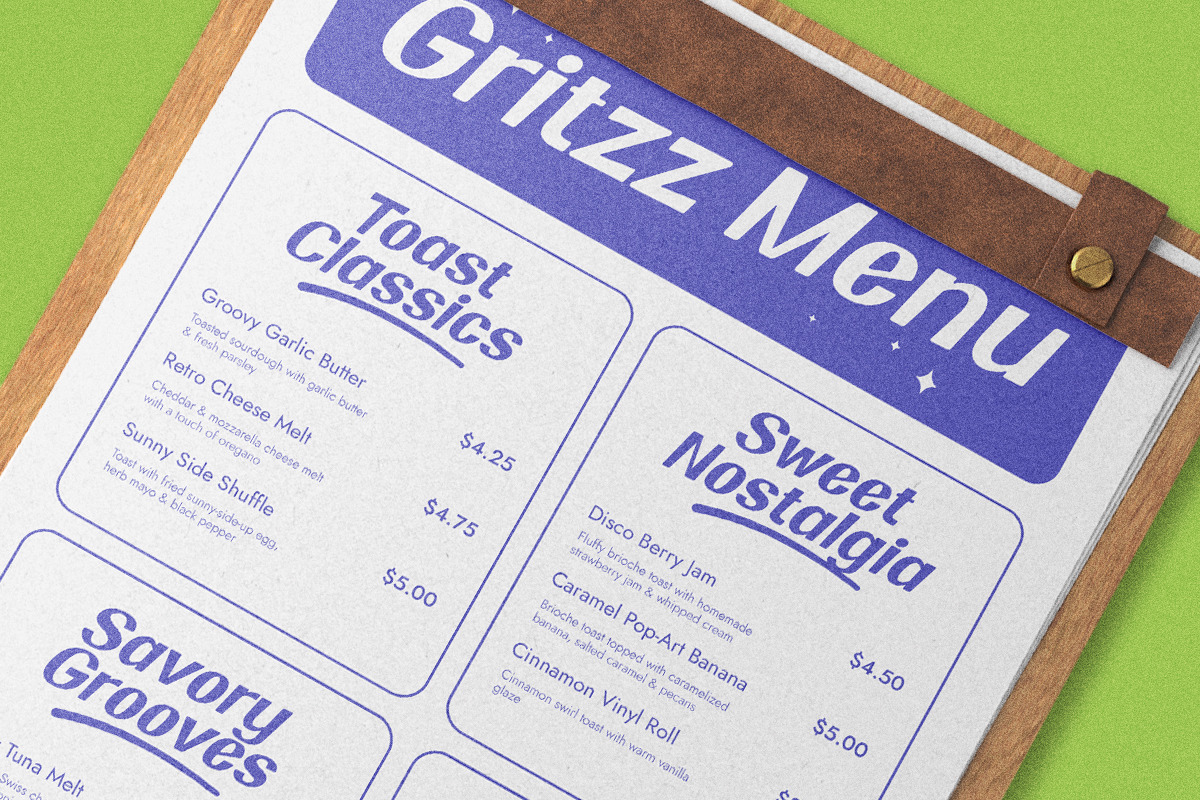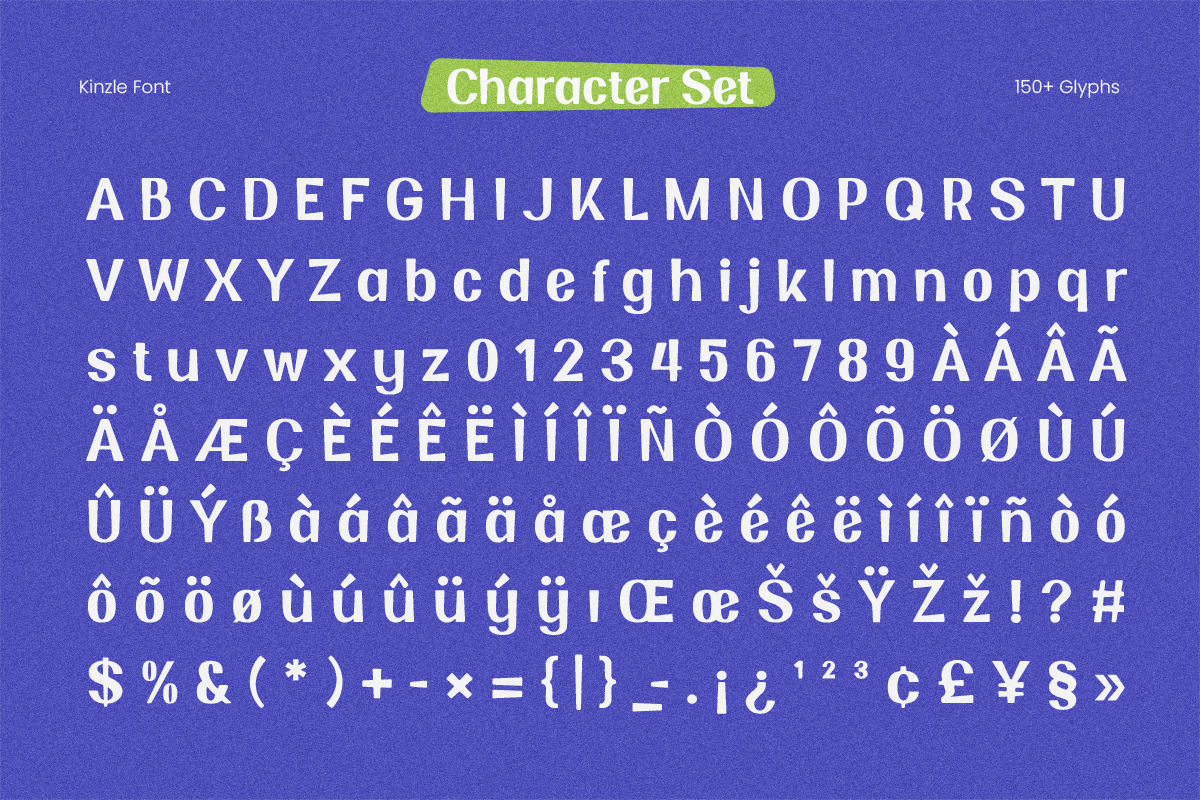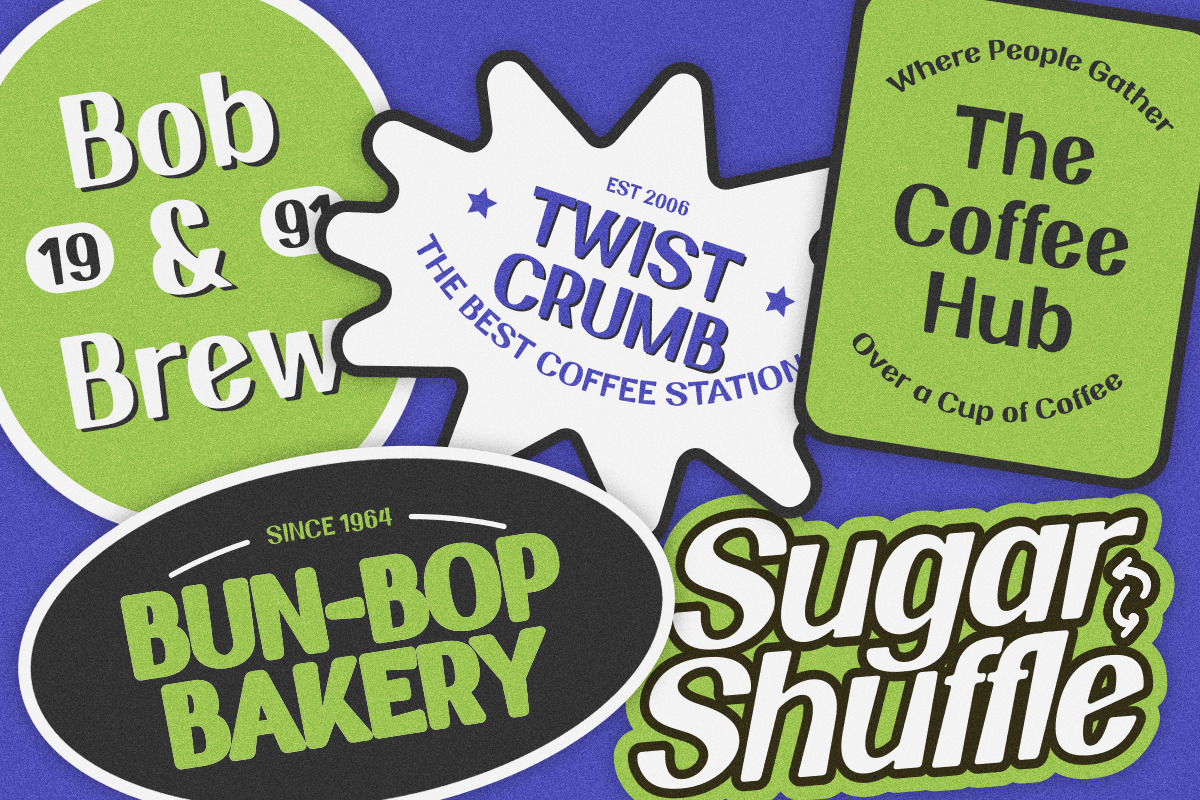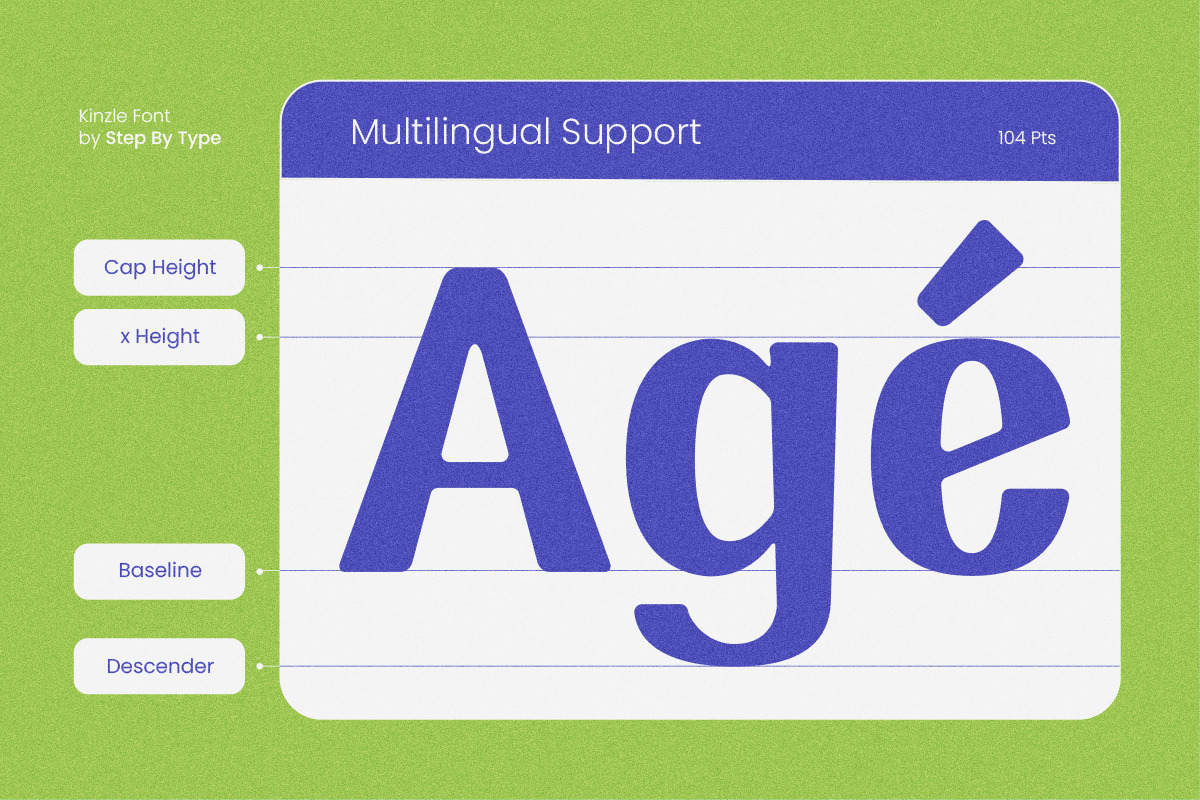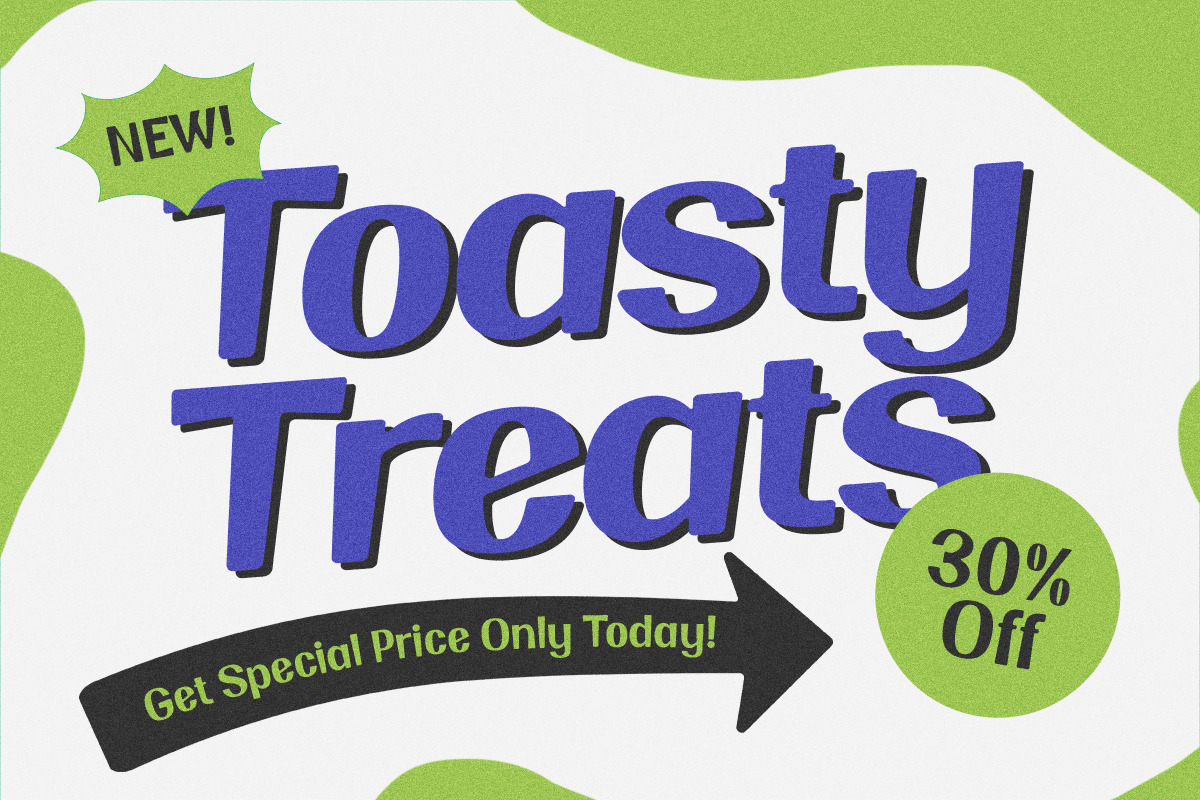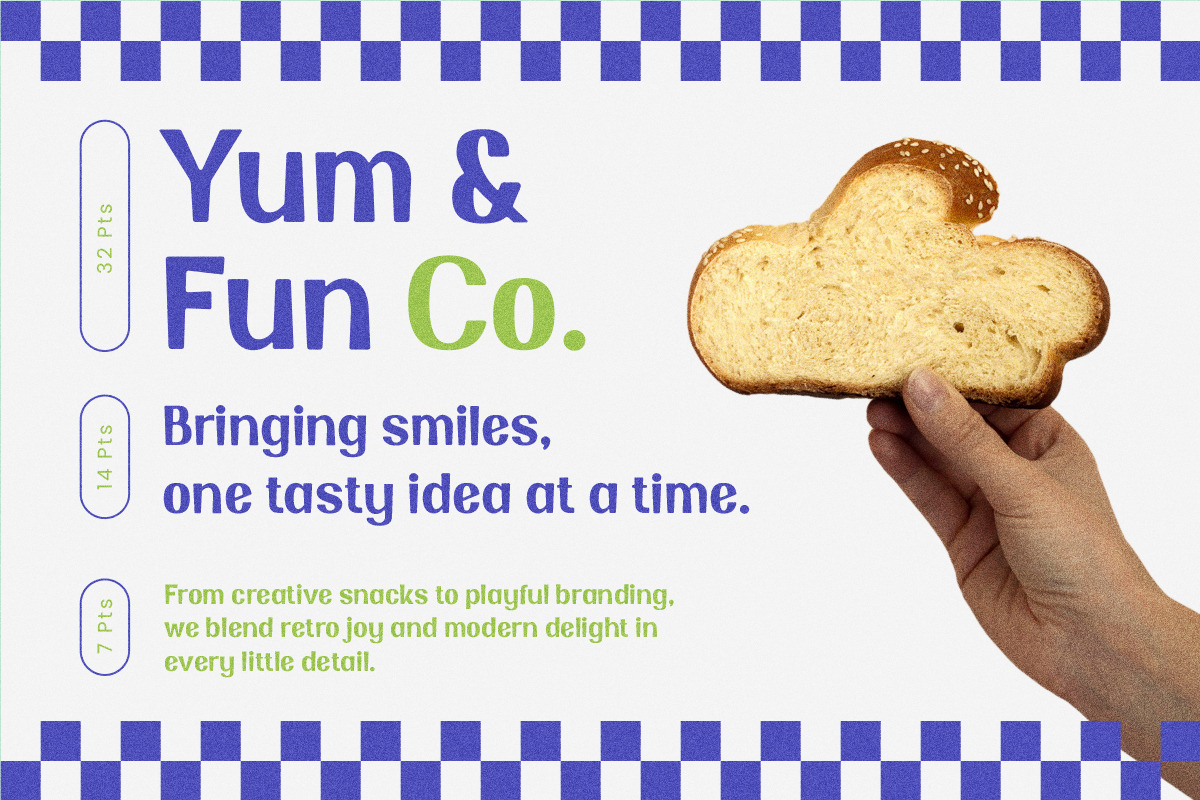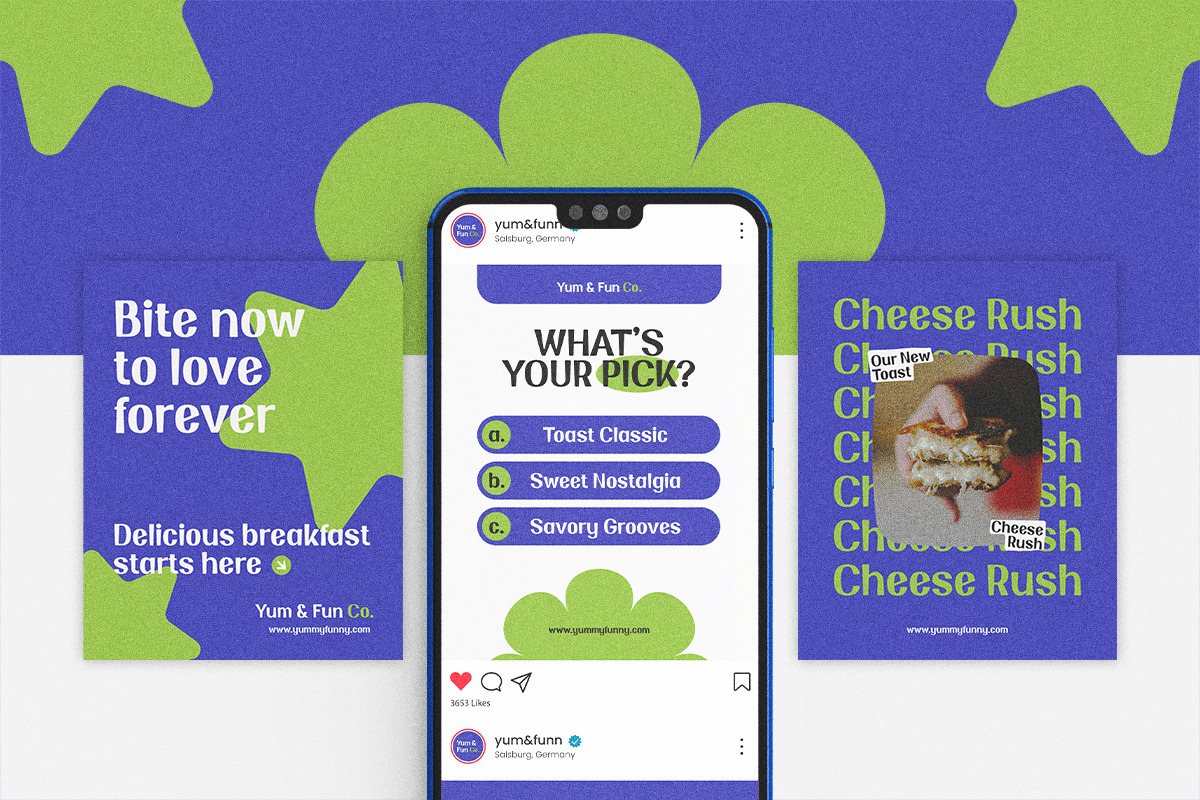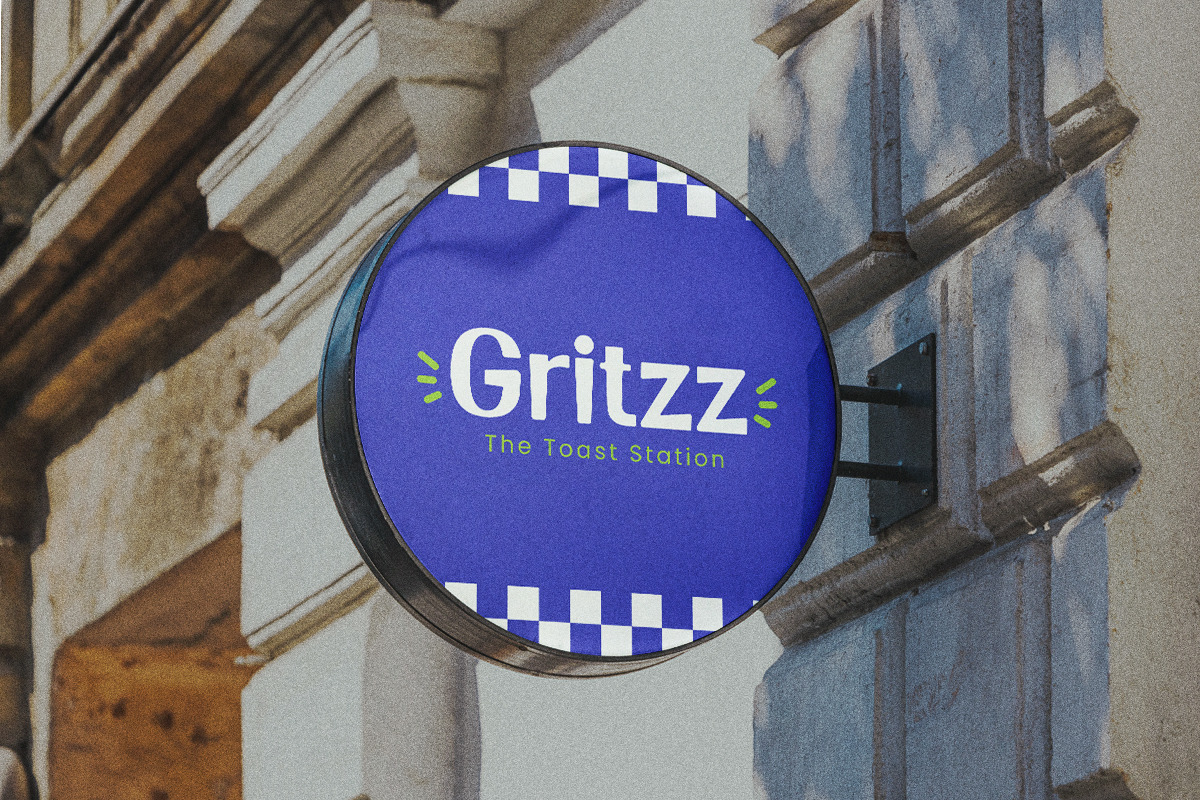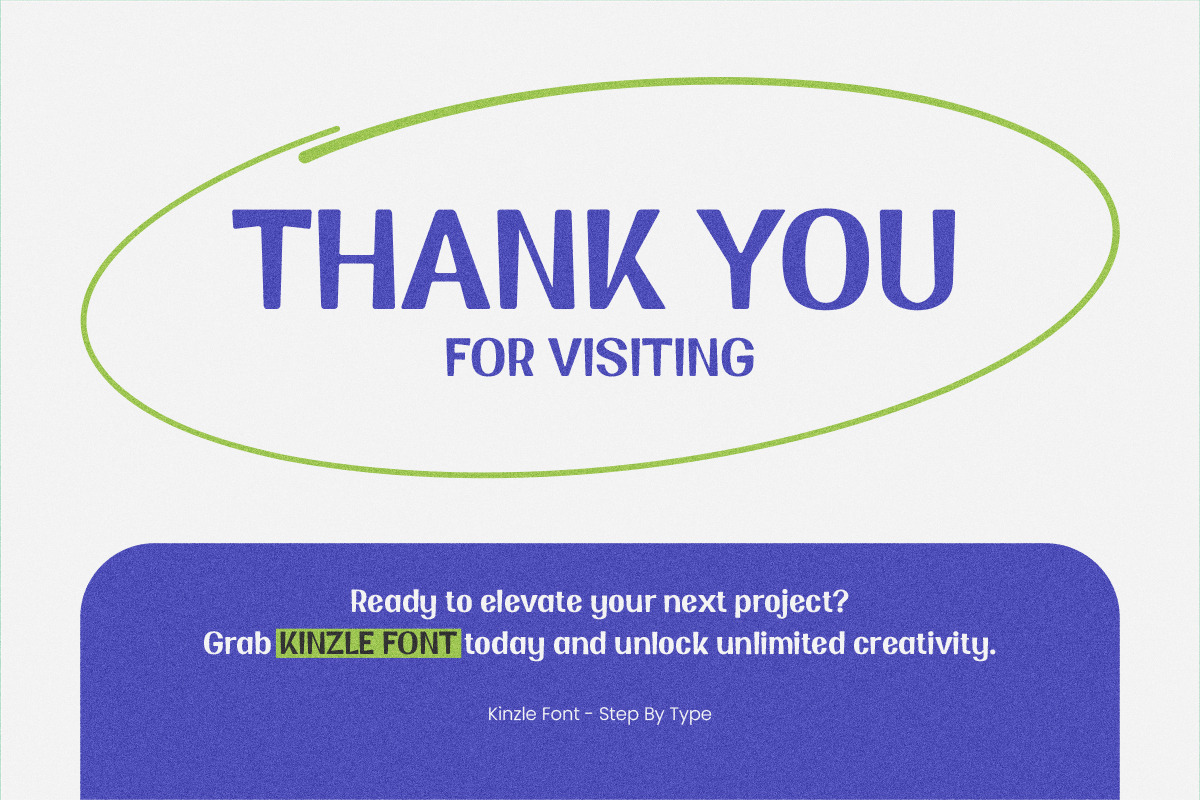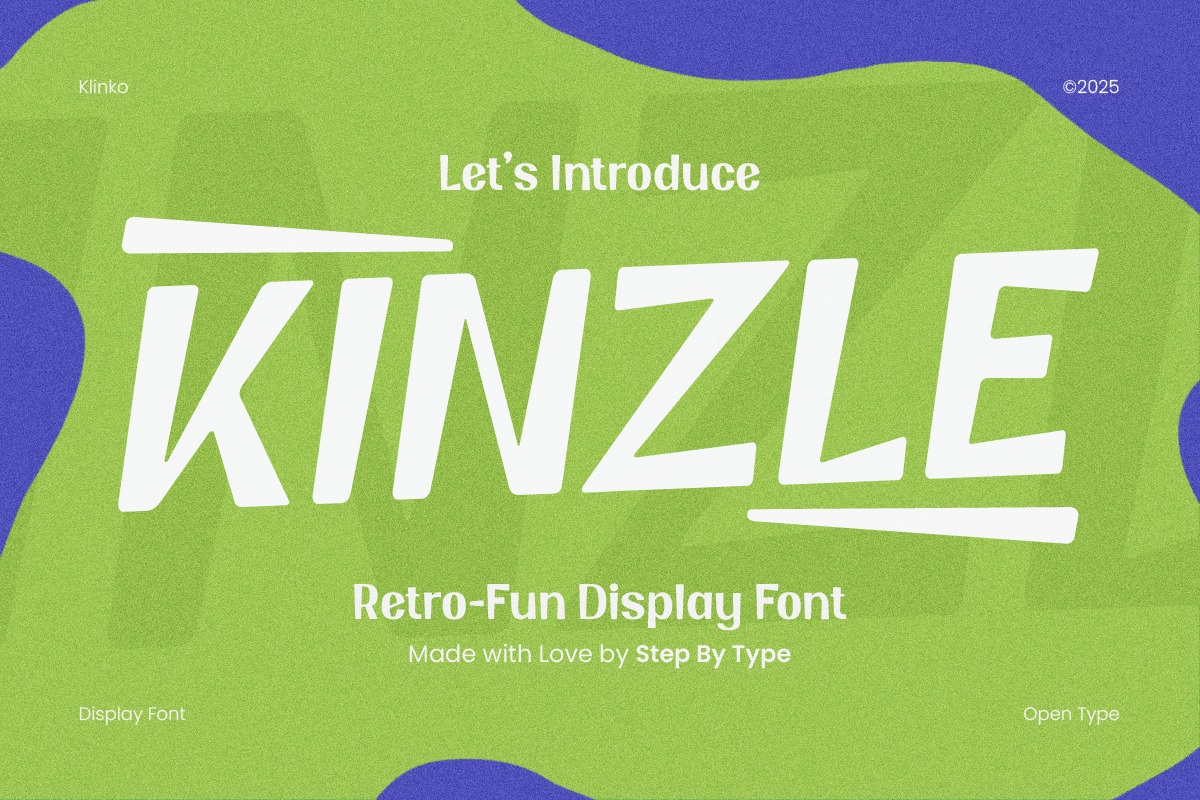
Kinzle - A Fun Display Font
Kinzle is a retro-fun display font bursting with playful, hand-crafted character. With its quirky irregular strokes, bouncy rhythm, and casual retro energy, Kinzle brings instant personality to logos, packaging, and headlines — the kind of type that feels friendly, spontaneous, and full of charm.
Perfect for brands that want to feel warm and approachable, Kinzle shines across food & beverage branding, playful packaging, social media, and lifestyle projects. It's a versatile display choice whenever a design needs a little retro joy and a lot of fun.
Great for: food & beverage branding, playful packaging, café and bakery logos, posters, social media graphics, product labels, apparel, and any project that needs a fun, retro touch.